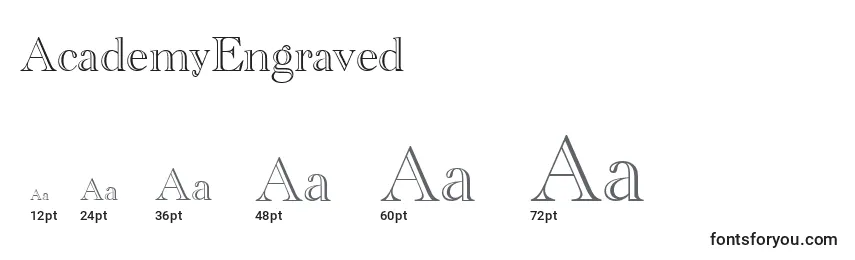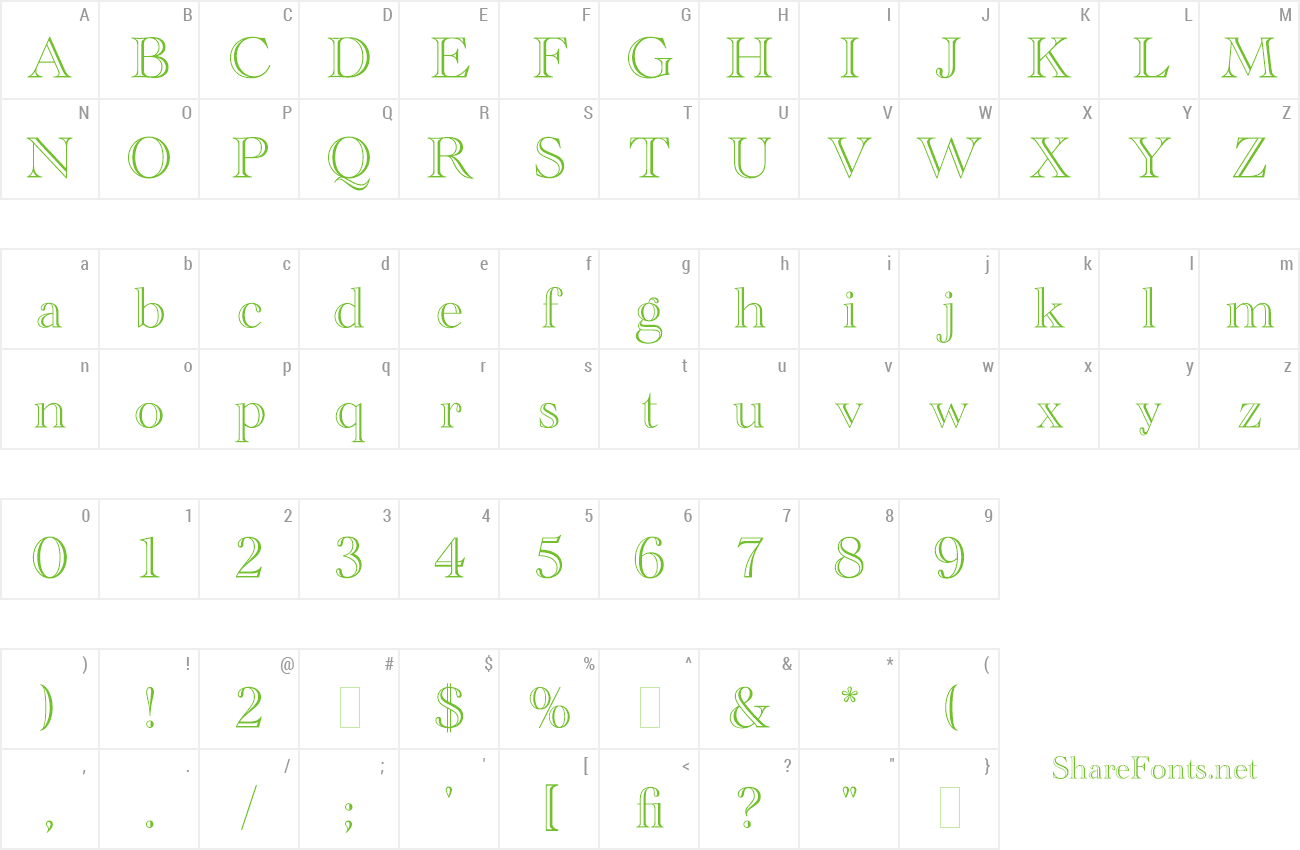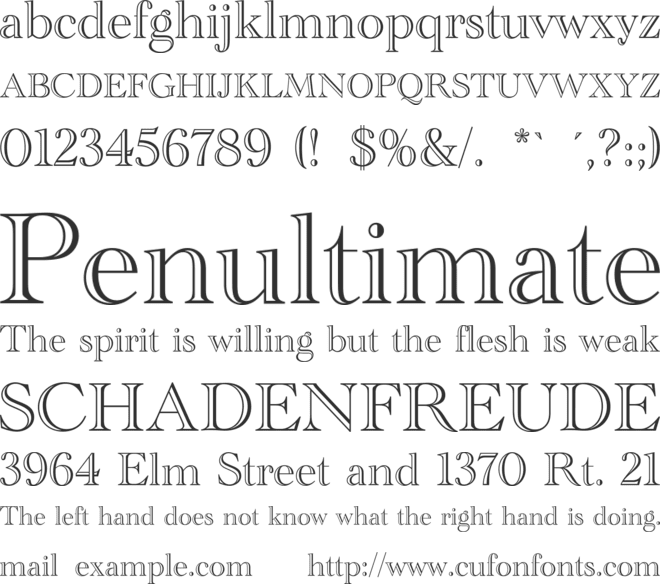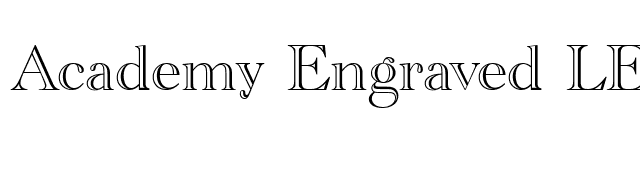
Although we have the largest database of fonts, the search for a font from an image gets mixed results like the image above. The exquisite letterforms of this traditional roman typestyle make it ideal wherever a refined, classical appearance is des.
Academy engraved was designed by vince whitlock and published by itc.
Free fonts often have not all characters and signs, and have no kerning pairs (avenue ↔ a venue, tea ↔ t ea). You can use the academy engraved to create interesting designs, covers, shop and store name and logos. We have 54 free engraved fonts to offer for direct downloading · 1001 fonts is your favorite site for free fonts since 2001
The licence mentioned above the download button is just an indication. Academy engraved font alphabet / a font is the combination of typeface, size, weight, slope, and style to make up a printable or displayable set of characters. Augustus beveled by intellecta design.
8488 search results for academy+engraved+let+plain. 100 free fonts alternatives to. Letraset’s talented type designer vince whitlock was inspired by the elegant caslon series when he created academy engraved.
The font family is academy engraved let.the subfamily is plain. Academy engraved is free for personal use only. Academy engraved let plain 1 0 is the perfect font for all your fun designs.
In fancy > old school 268,969. Similar free fonts for academy™ engraved. Academy engraved let plain 1 0 is free for personal use only.
Set the effect properties and the font face you prefer. We have a huge collection of around 72,000 truetype and opentype free fonts, checkout more on fontpalace.com We have a huge collection of around 72,000 truetype and opentype free fonts, checkout more on fontpalace.com academy engraved std 1.000;ps 1.0;hotconv 1.0.38 fonts.
Academy engraved let plain academy engraved let plain:1. What fonts are similar to academy engraved std? Download academy engraved font free for windows and mac.
Academy font | dafont.com english français español deutsch italiano português. Download more than 10,000 free fonts hassle free, desktop and mobile optimized, around for more than 20 years. Letraset’s talented type designer, vince whitlock, was inspired by the elegant caslon series when he created academy engraved.